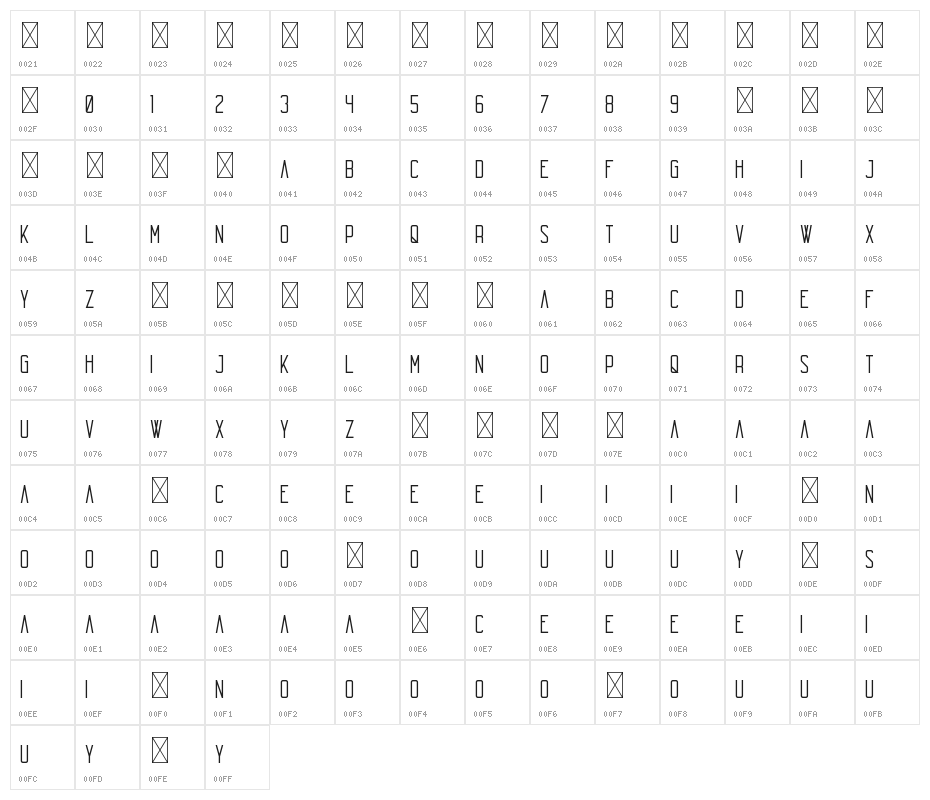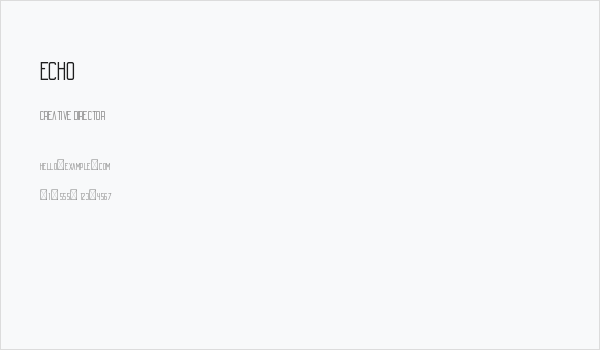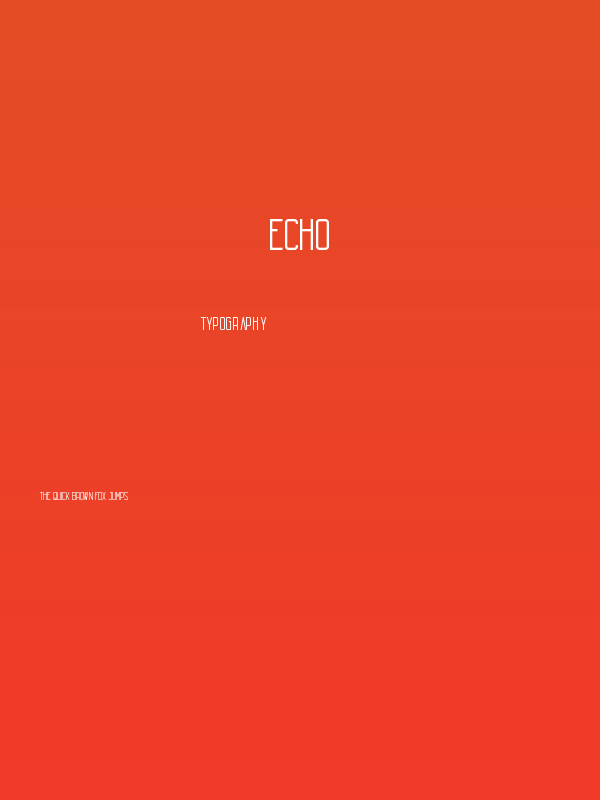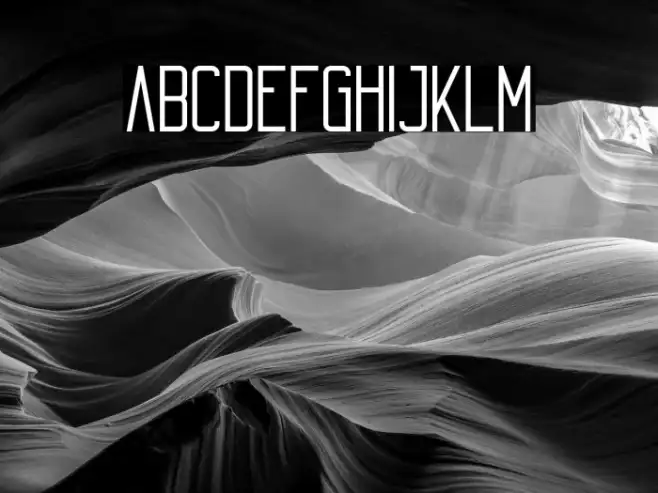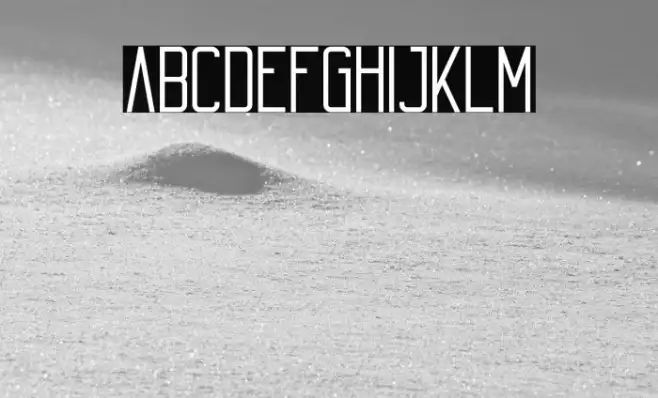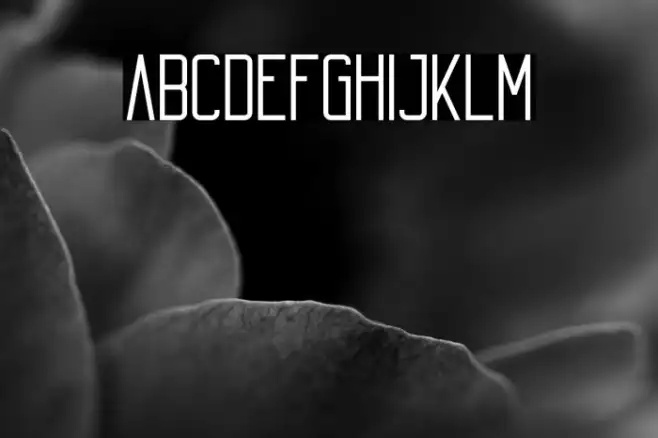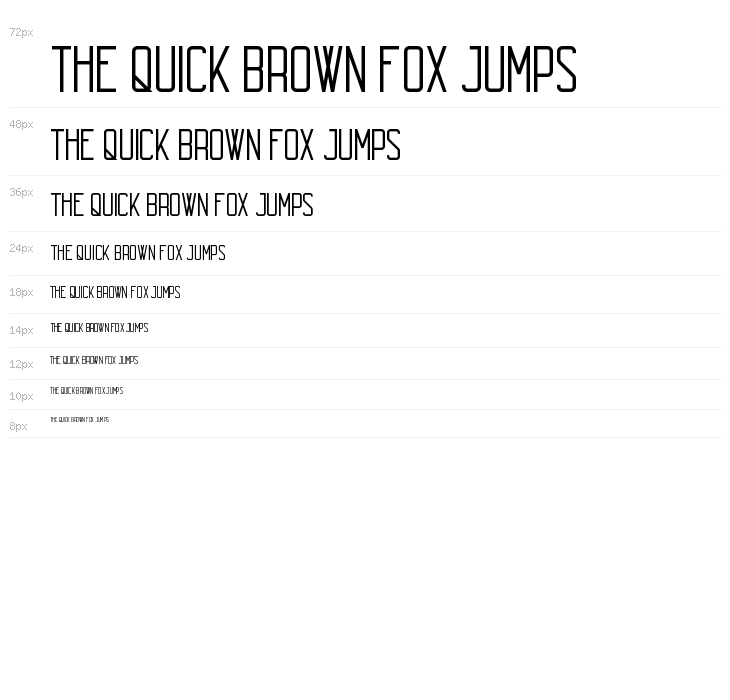
Echo Font
Echo Description
This font features a modern and geometric design with clean lines and a structured appearance. The characters are tall and narrow, giving it a sleek and contemporary look. The uppercase letters are uniform in height, while the lowercase letters maintain a consistent style, enhancing readability. The numerals are distinct and align well with the overall design, making them suitable for various applications. The absence of serifs contributes to its minimalist aesthetic, while the angular elements add a touch of uniqueness. This font is versatile, suitable for both digital and print media, and can be used effectively in branding, advertising, and editorial design.